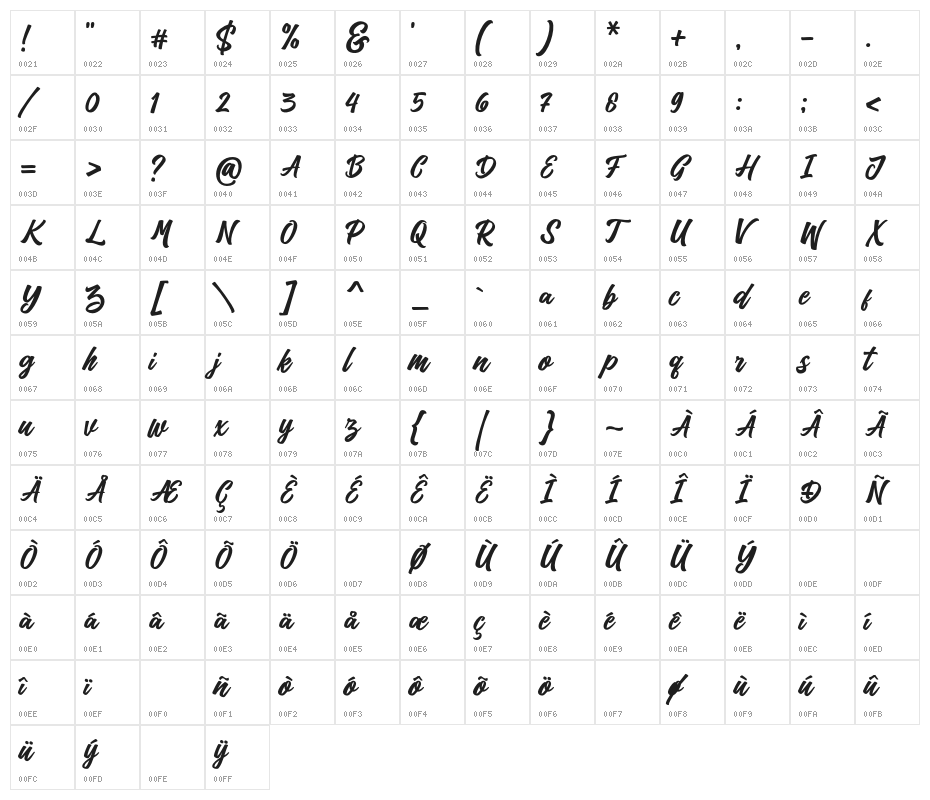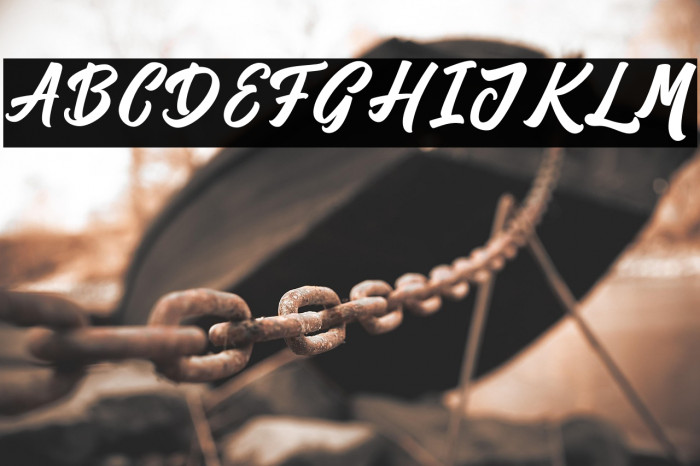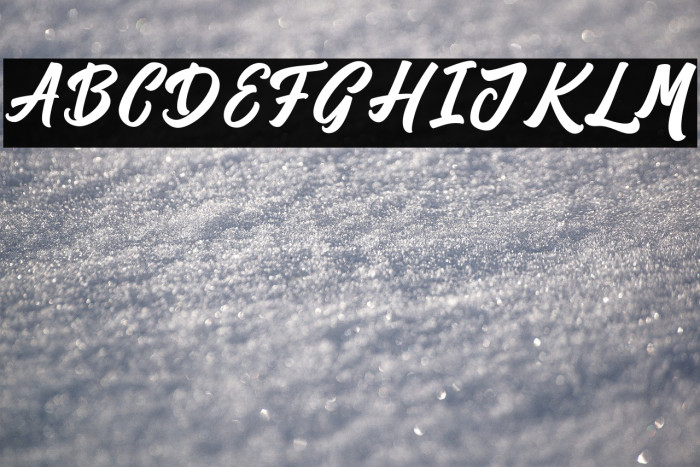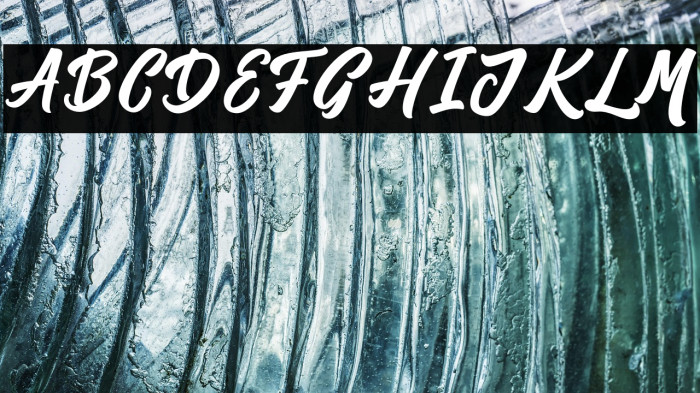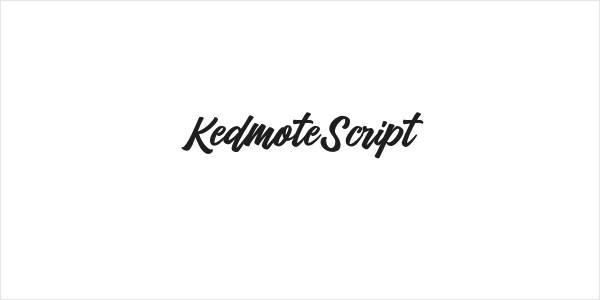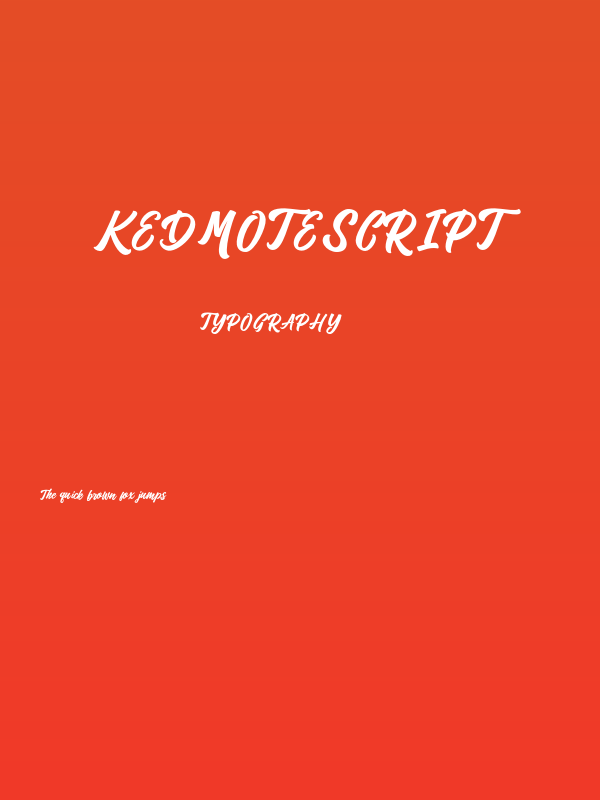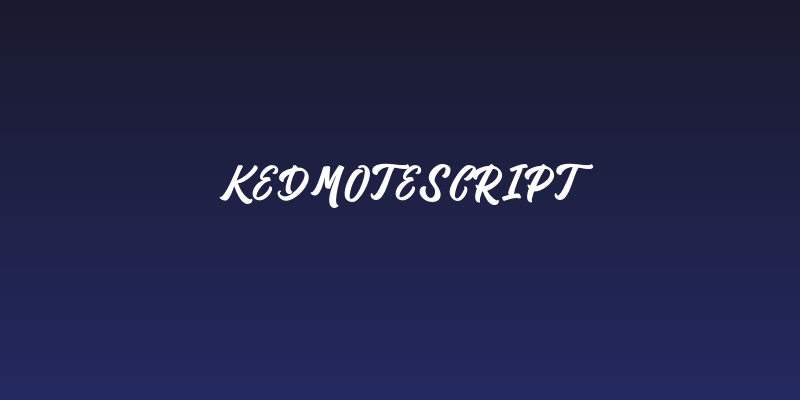
KedmoteScript Font
KedmoteScript Description
A bold, flowing script font with a handwritten style, featuring smooth curves and connected letters.
| Use Case | Logos, decorative text, invitations. |
| Proposed Projects | Invitations, greeting cards, logos, branding. |